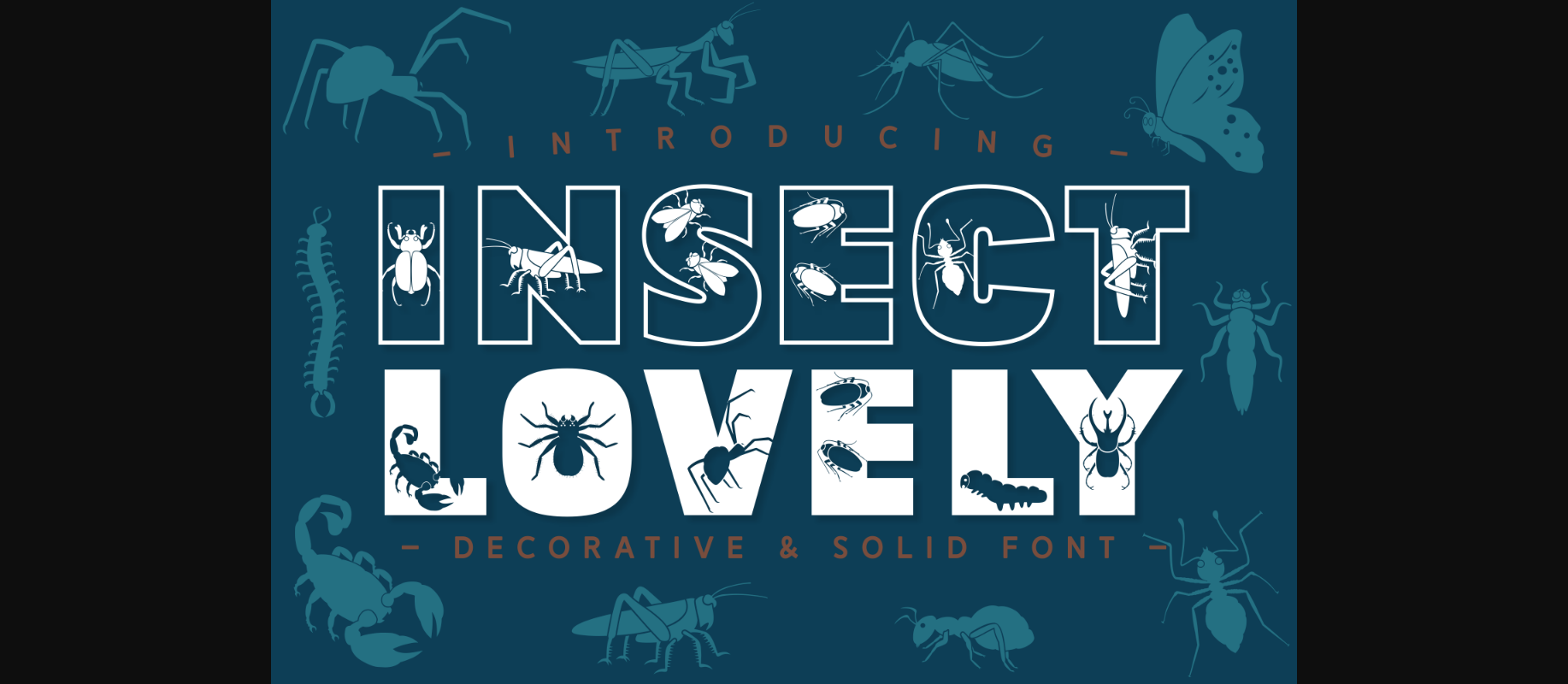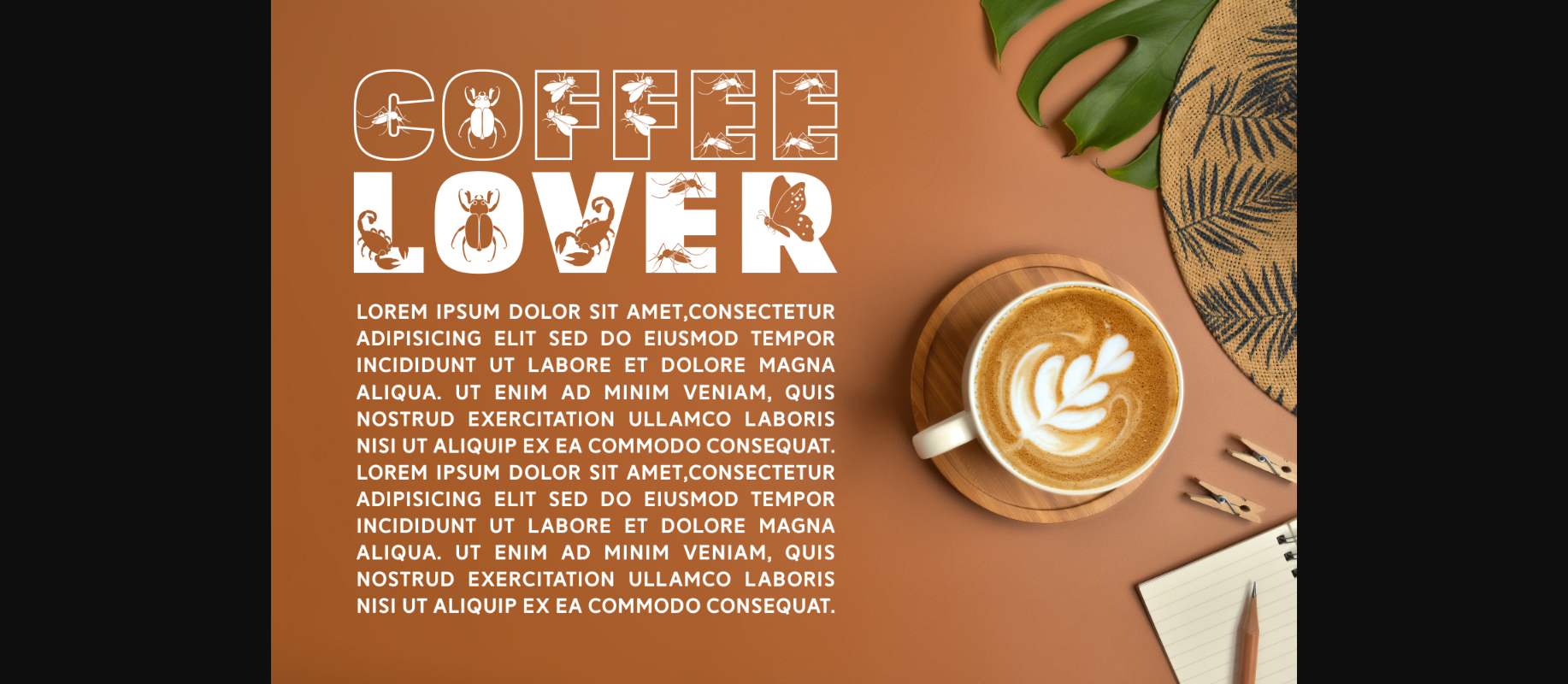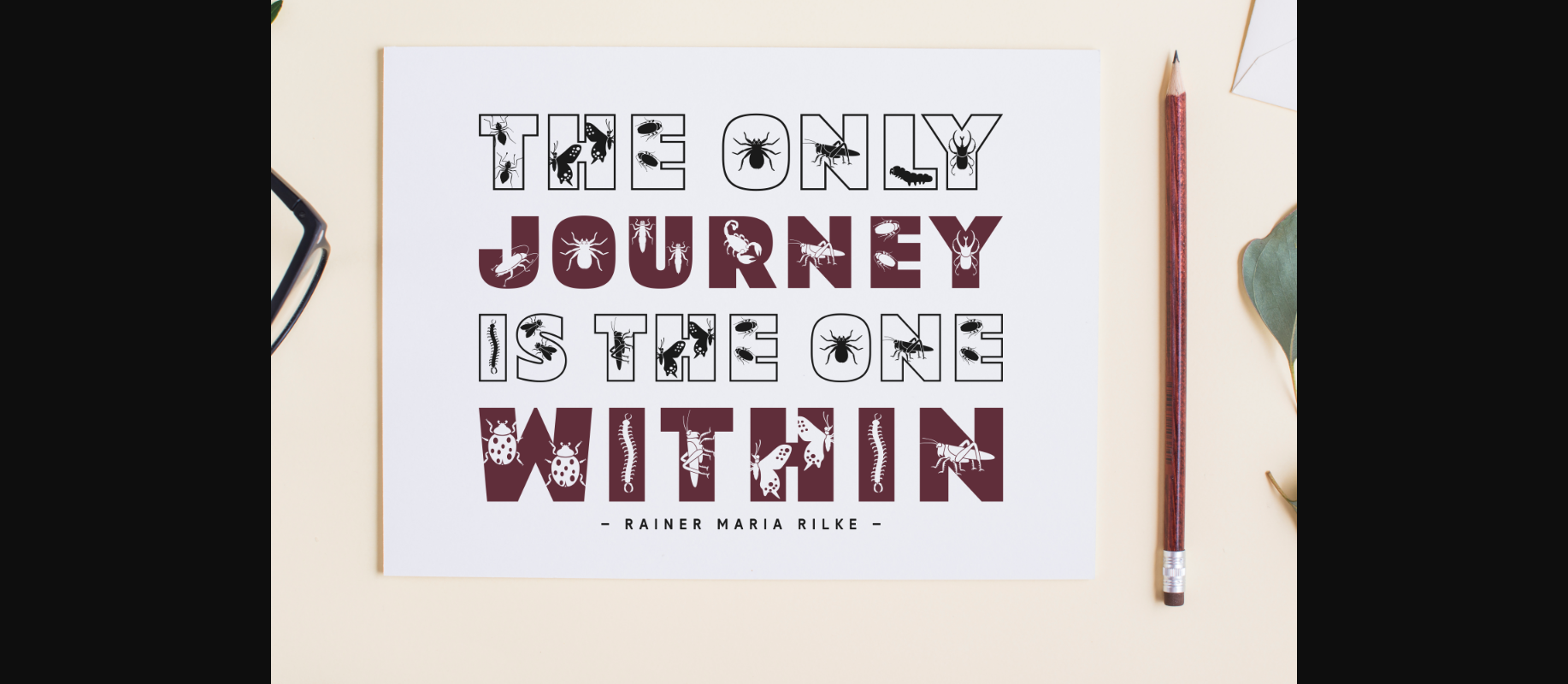
About Insect Lovely Font
Insect Lovely is a cool and incredibly interesting decorative font. No matter the topic, this font will be an incredible asset to your fonts’ library, as it has the potential to elevate any creation.